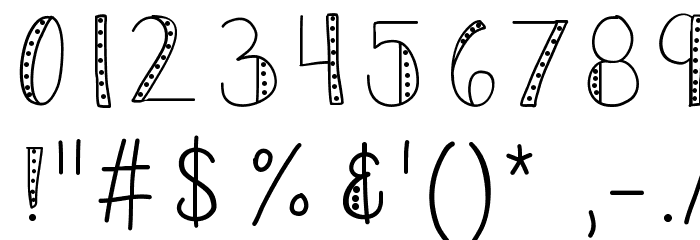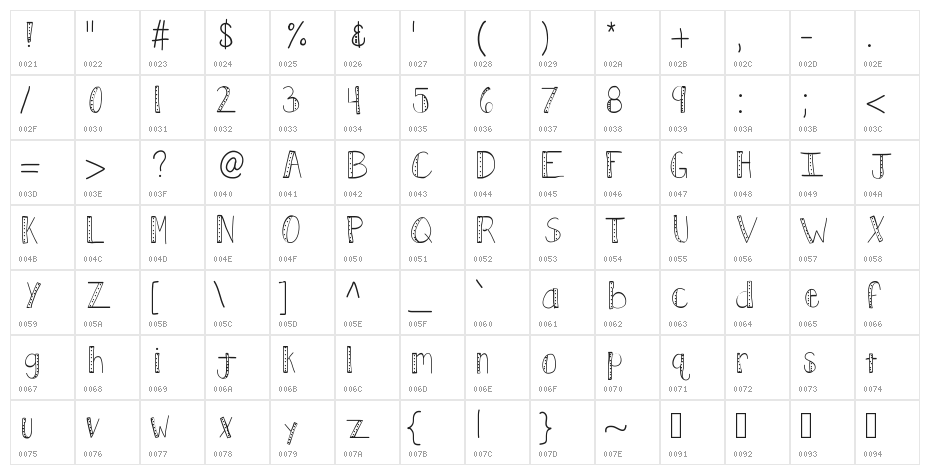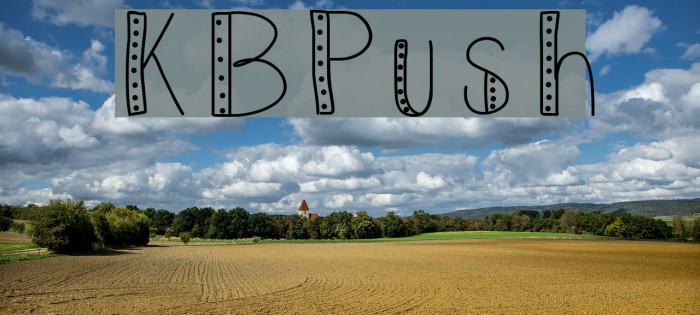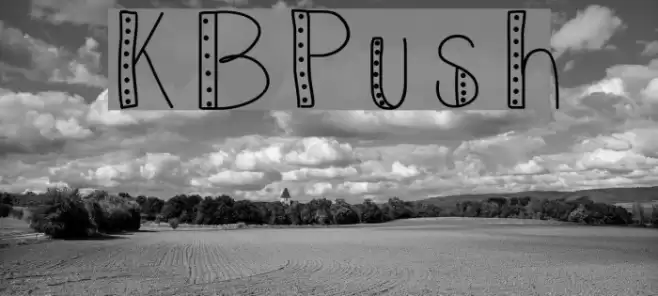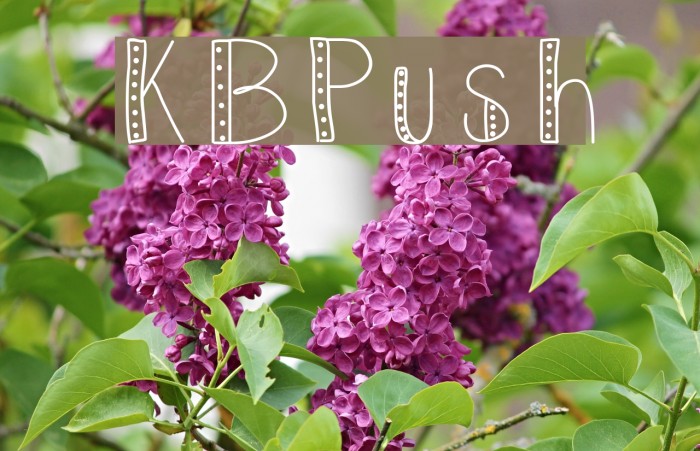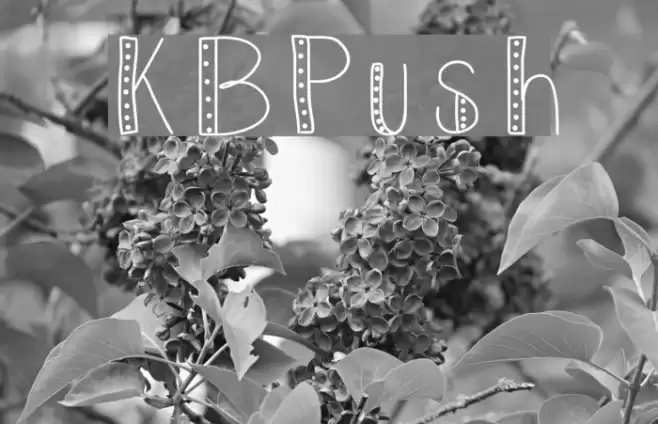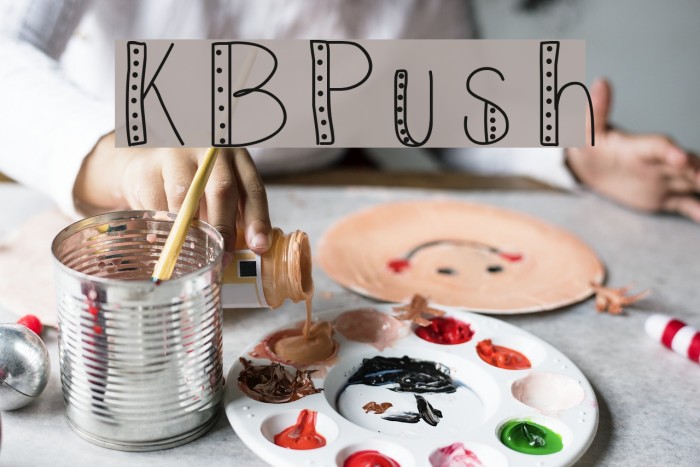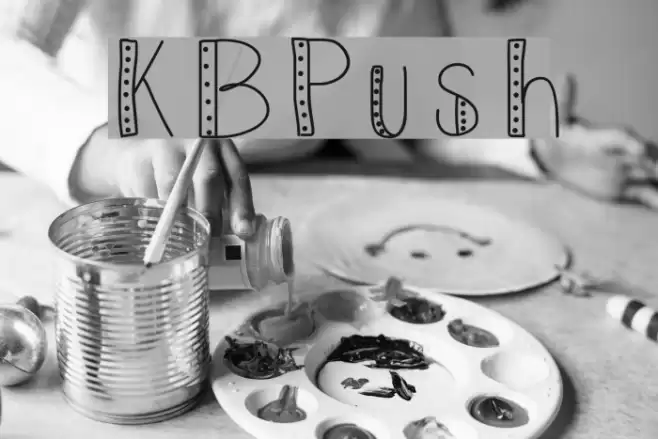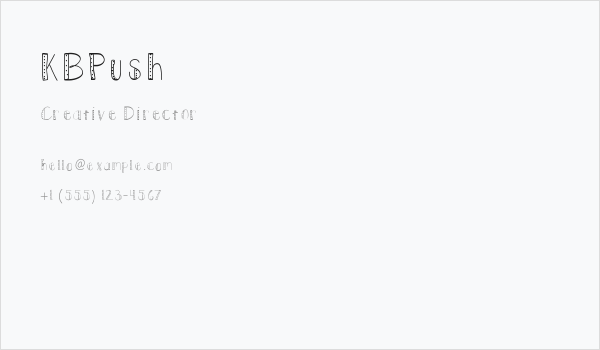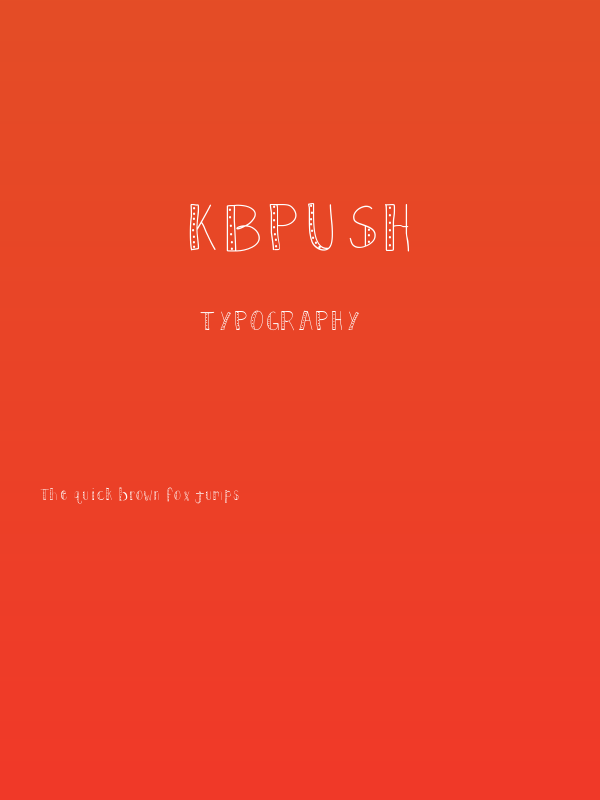
KBPush Font
KBPush Description
This playful and decorative font features a unique hand-drawn style with dotted accents along the vertical strokes of each character. The uppercase letters are bold and slightly whimsical, while the lowercase letters maintain a consistent style, adding a touch of charm and creativity. The numerals are equally distinctive, with a playful flair that complements the overall design. Special characters are included, maintaining the same artistic style, making this font versatile for various creative projects. The font's overall appearance is casual and fun, perfect for projects that require a lighthearted and engaging aesthetic.
| Proposed Projects | Ideal for children's books, greeting cards, playful branding, and creative posters. |